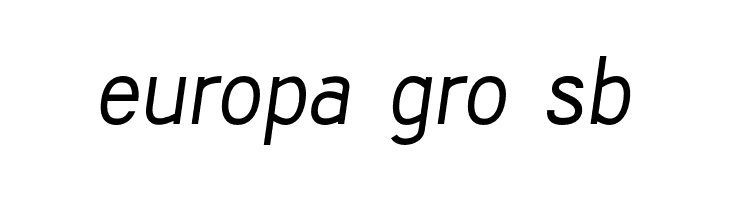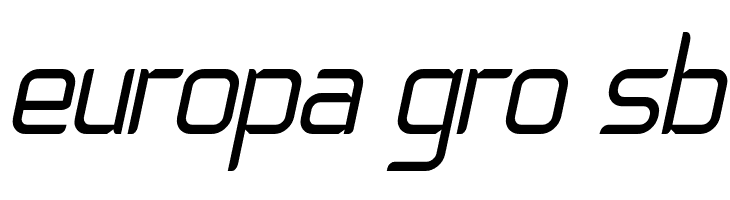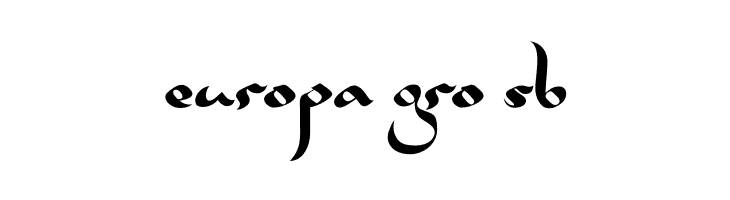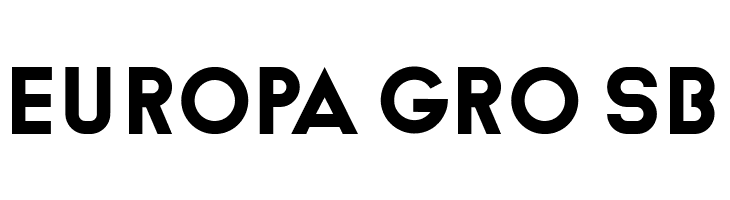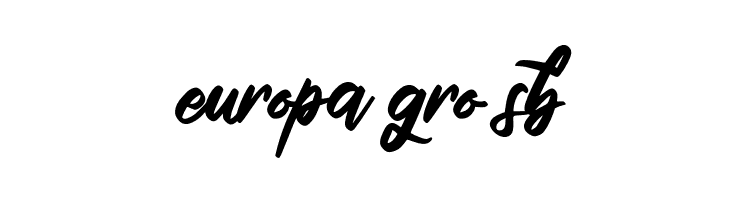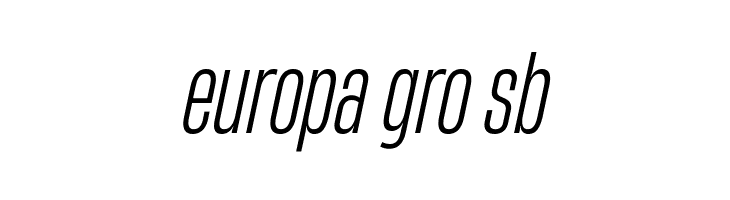
• KalyantDemoOblique
A modern oblique font with clean lines and a minimalistic design.
A sleek, modern italic font with medium contrast and condensed spacing.
• Tango Sans Bold
A bold, modern sans-serif font with clean lines and geometric structure.
• Colombia Bold
A bold, modern sans-serif font with clean lines and balanced spacing.
• Hiyotori Bold
A bold, geometric sans-serif font with clean lines and modern appeal.
• Zanzabar
An artistic, calligraphic font with elegant curves and sharp edges.
• Manti Slab Demo
A bold slab serif font with a classic yet modern appeal.
• BOLeD
A bold, geometric font with clean lines and strong presence.
• Yosarosa
A fluid and graceful script font with elegant, flowing strokes.
A bold, modern font with a slightly condensed style and consistent stroke width.
• Graf Regular
A bold, modern font with clean, geometric lines and balanced spacing.
• Fabela FREE
A dynamic and fluid script font with elegant, flowing letterforms.
• QutapyFREE
A dynamic and expressive script font with fluid, connected letterforms.
• Gunny Manual Medium
A casual handwritten font with smooth curves and consistent strokes.
• Goldbill XS ExtraBold Italic
A bold, italic typeface with high contrast and a modern, dynamic style.
• Gibster
• REVONZA Regular
A modern, elegant font with clean lines and slight stroke contrast.
• Stinger Wide Trial Heavy Italic
A bold, wide, and heavy italic font with a modern and dynamic style.
• Milligram Macro Trial Regular
A modern, geometric sans-serif font with a clean and balanced design.
• Garbata Trial Medium Italic
A modern, italic font with clean lines and smooth curves.
• Garbata Trial Extrabold
A bold and robust font with strong, thick strokes and a confident presence.
• Asgard Trial Wide Thin Italic
A modern, thin, italic font with wide spacing and elegant design.